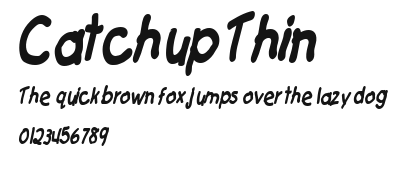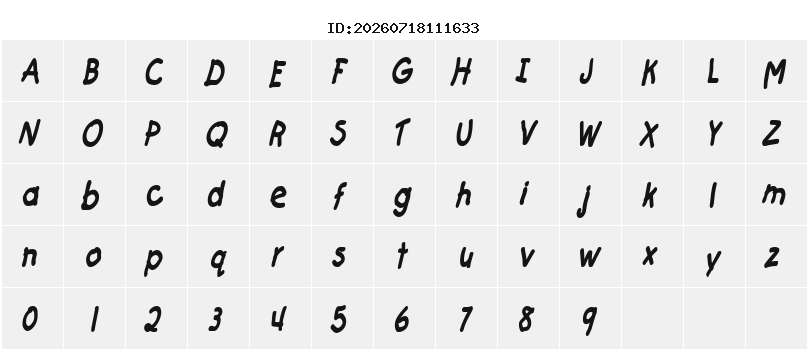
• Font Name: Catchup Thin
• Font Style: BoldItalic
• Font ID: Altsys Fontographer 4.1 Catchup Thin BoldItalic
• Full Font Name: Catchup Thin BoldItalic
• Version: Altsys Fontographer 4.1 12/27/94
• PostScript Name: CatchupThinBoldItalic
• Character Count: 225
About Catchup Thin.ttf
Catchup Thin.ttf is a modern, elegant sans-serif font designed for ultimate readability and visual harmony. Perfect for branding, headlines, web design, and print materials.